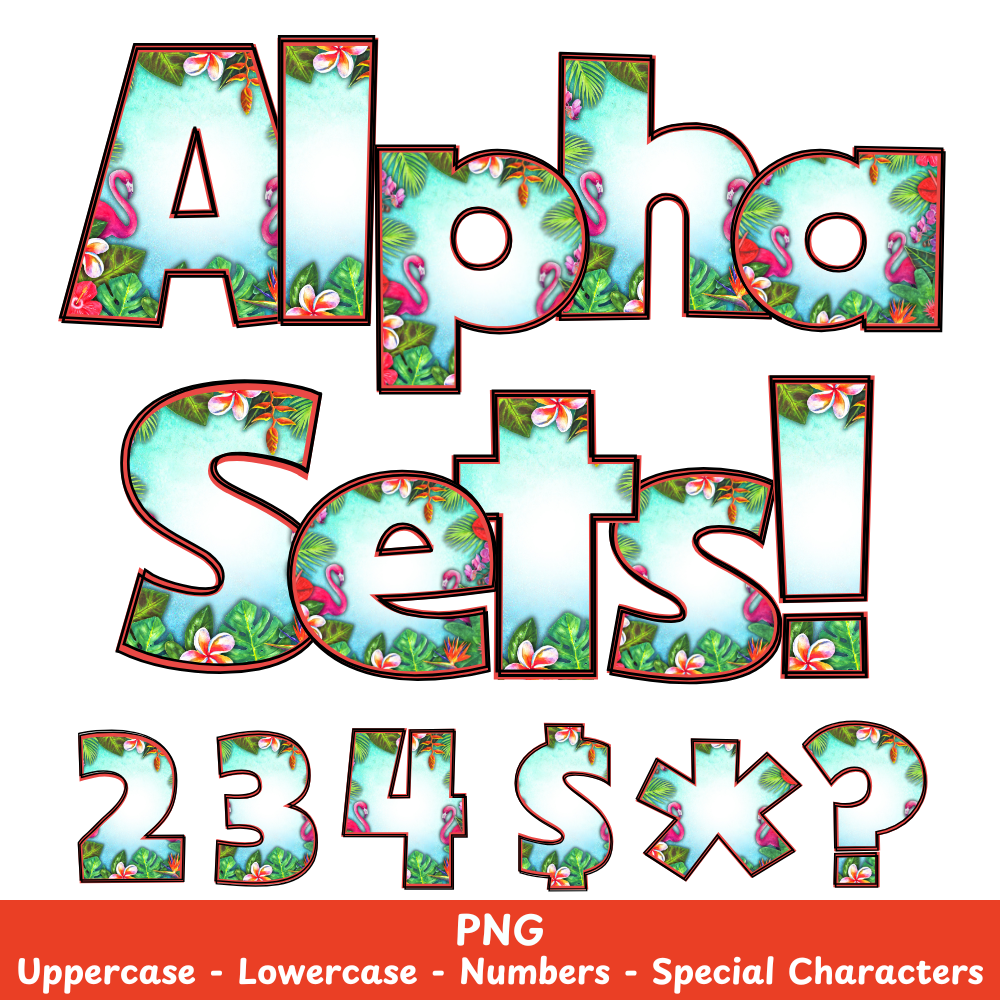
Green Tropical PNG Font
Green Tropical Alpha Set PNG Font Pack
Enhance your crafting with the versatile Green Tropical PNG Font. This high-quality font boasts vibrant greens and tropical elements, perfect for sublimation projects. With easy use in various crafts, this font is a must-have for any creative.